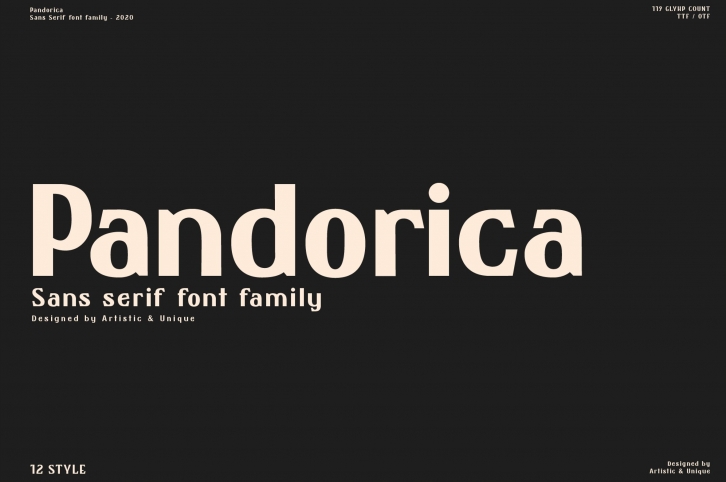
Pandorica is a beautiful font that was designed by ARTISTIC AND UNIQUE. It's a great choice for designers and creatives who need such a font. It was released on December 10, 2020 and the file size is 13.24 MB. Pandorica may give a more youthful, expressive and casual look to your project. It is a very beautiful, refined, elegant, and high-quality font.